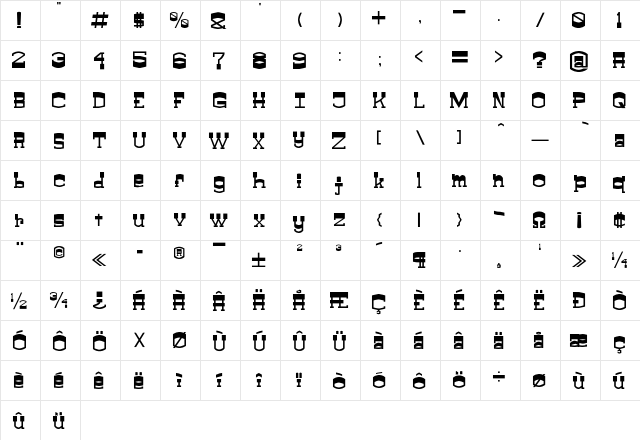
ClayFeet_V0.0.0 Regular
Design Context for ClayFeet_V0.0.0 Typeface
ClayFeet_V0.0.0 is a composed and adaptable typeface that performs quietly and consistently across a wide range of design contexts.
Pro Tip: Use ClayFeet_V0.0.0 in both headline and body roles to test its range before committing to a single application.